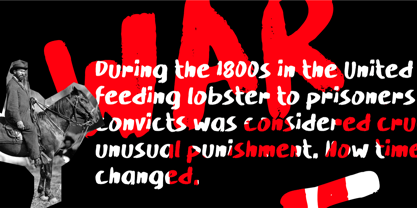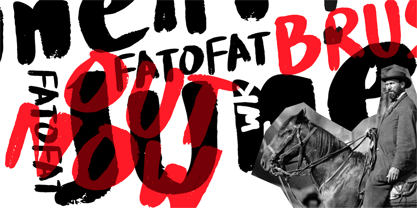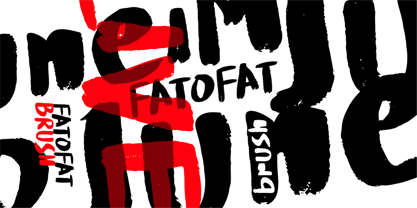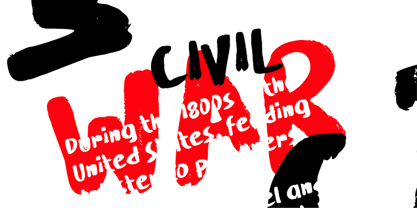
Fatofat Brush
by Hati
The Fatofat Brush Font Family was designed by Wahyu Eka Prasetya, Afiat Sukmaraga and published by Hati. Fatofat Brush contains 1 styles.
Introducing Fatofat – a font forged for those who champion freedom and unyielding strength. Its sharp serifs cut through conformity like a blade, while robust strokes embody resilience and defiance. Each glyph pulses with the spirit of independence, evoking revolutionary banners and iron-willed manifestos. Perfect for headlines that demand attention, logos that stand tall, or messages that refuse to bow. Liberty Bold isn't just typography; it's a declaration of character, crafted for visionaries who live boldly and speak freely. Embrace the power of expressive design that inspires courage and celebrates the untamed soul
Designers: Wahyu Eka Prasetya, Afiat Sukmaraga
Publisher: Hati
Foundry: Hati
Design Owner: Hati
Fatofat Brush